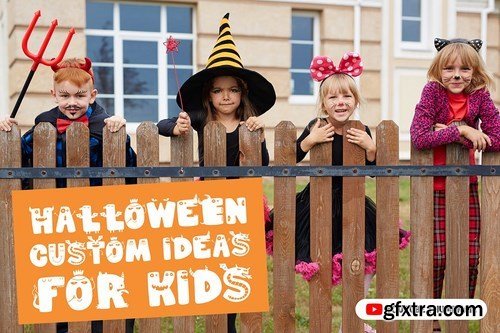
When we talk about monster, it's not always the one that really scary. We can all have a cute, adorable, and friendly monster as well. MUNSTERIA comes just like that. It is a kids friendly spooky monster for your projects.